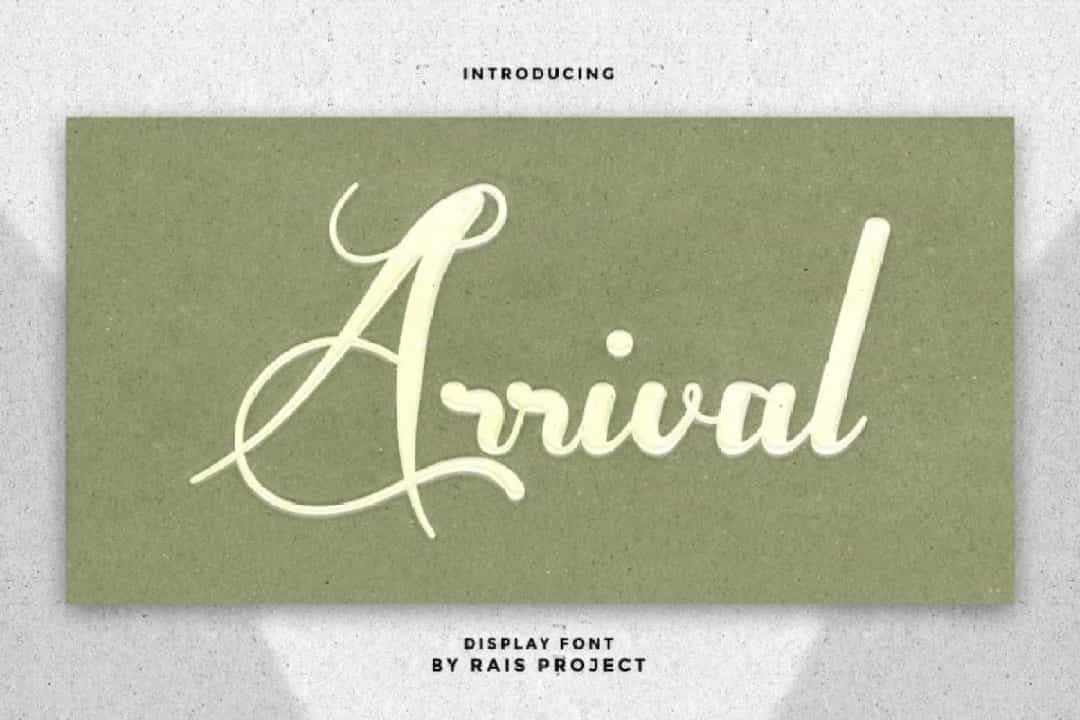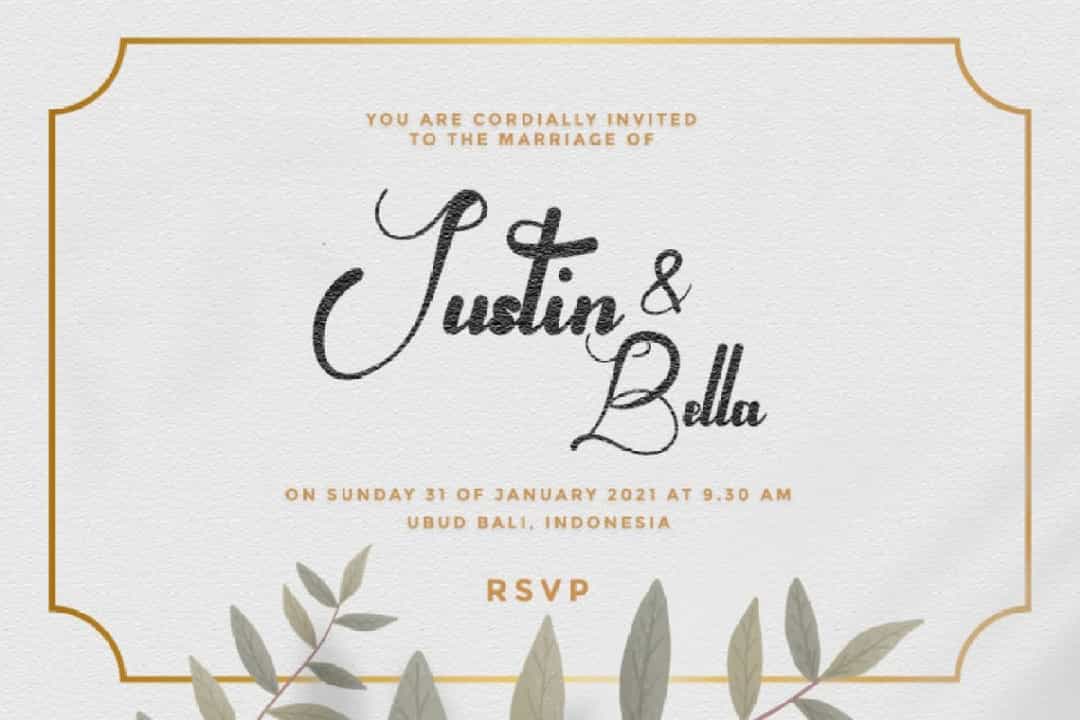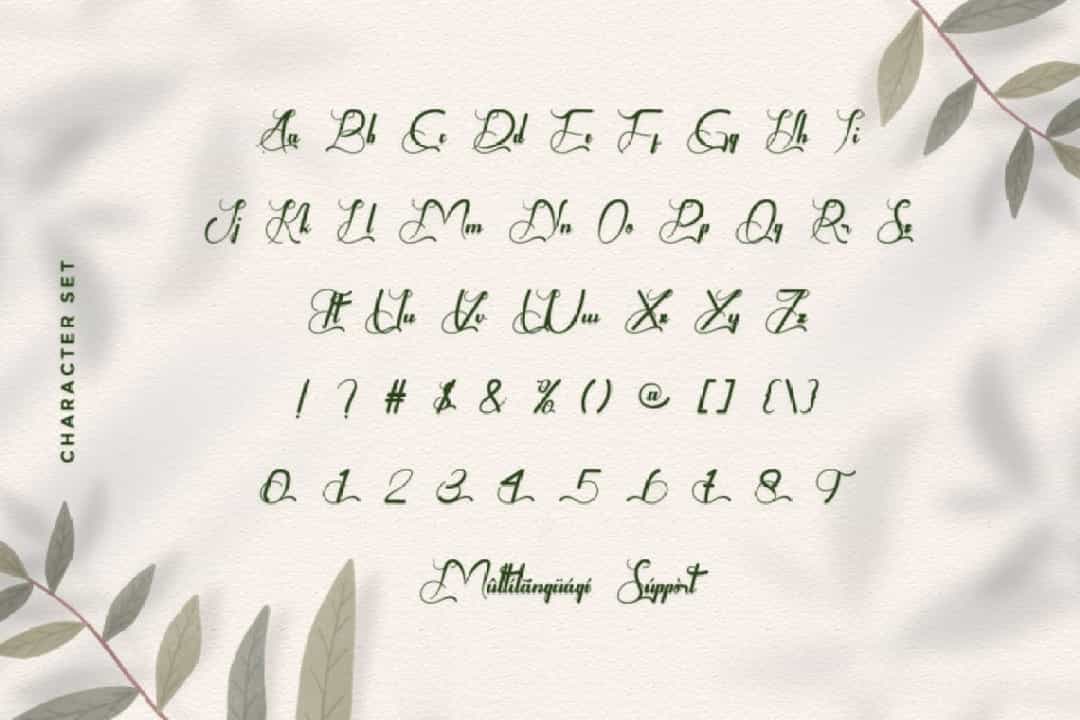
The Arrival Calligraphy Font is an eye-catching contemporary script typeface. Carefully handcrafted to feature beautiful characters, it will add beauty to all types of projects including weddings, promotions, events branding, advertisements magazine shopping invitations signage stationery social media posts packaging designs product labels watermarks photography any other projects that require handwritten calligraphy.